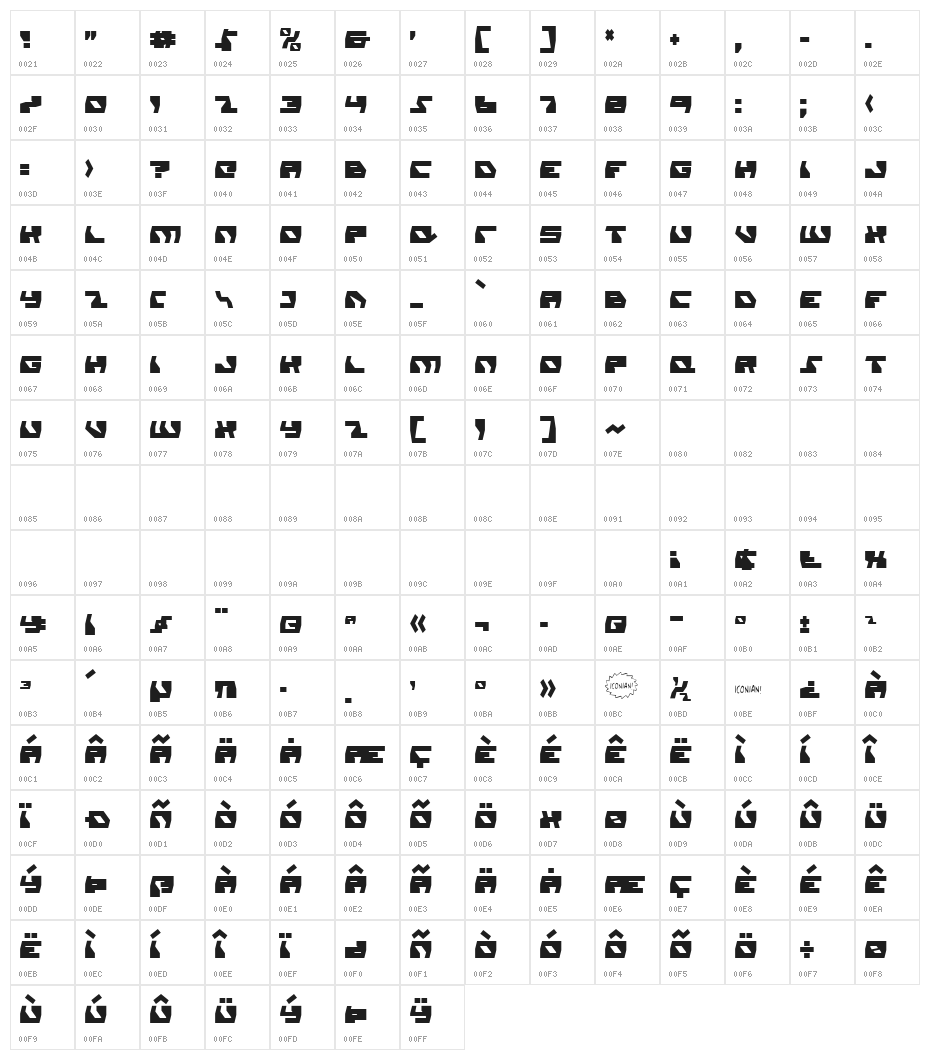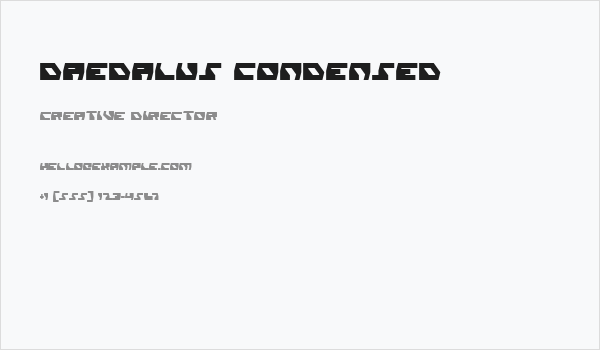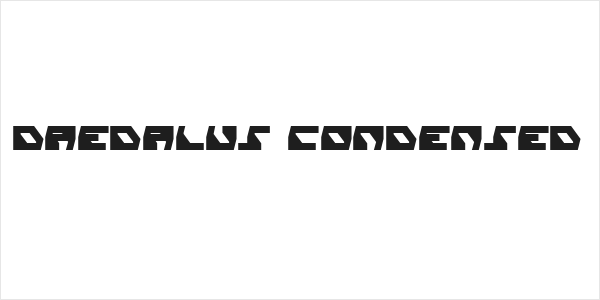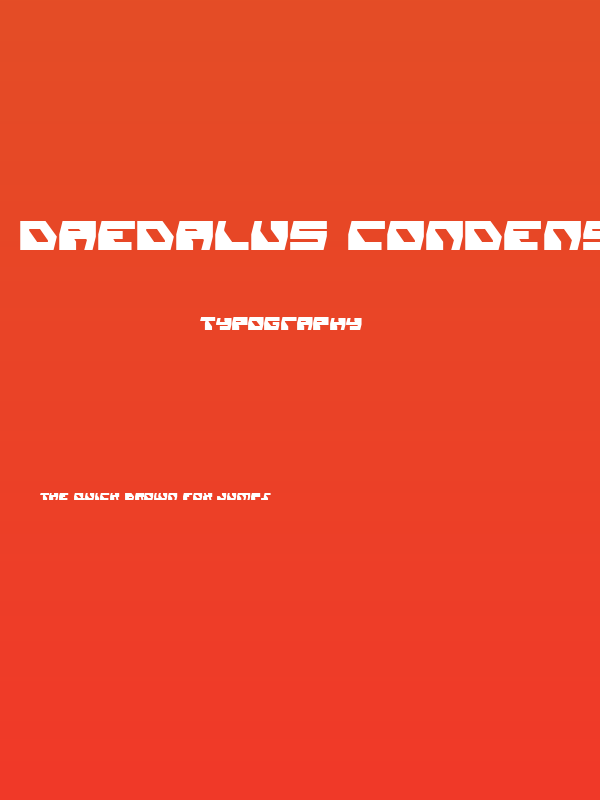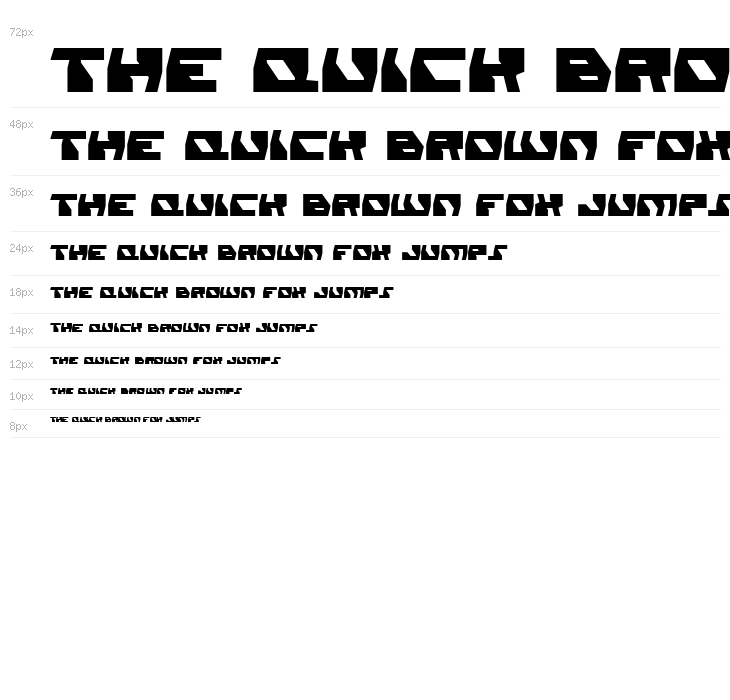
Daedalus Condensed Font
Daedalus Condensed Description
This font features a bold and geometric design with a futuristic aesthetic. The characters are constructed with sharp angles and straight lines, creating a sense of movement and energy. The condensed nature of the font allows for efficient use of space, making it ideal for impactful headlines and titles. The uppercase and lowercase letters maintain a consistent style, with the lowercase letters mirroring the angular design of the uppercase. Numbers and special characters are equally bold and angular, ensuring uniformity across all text elements. The font's unique style makes it stand out, suitable for projects that require a modern and edgy look.
| Proposed Projects | Ideal for sci-fi themed designs, video game titles, posters, and branding that requires a modern and edgy appearance. |